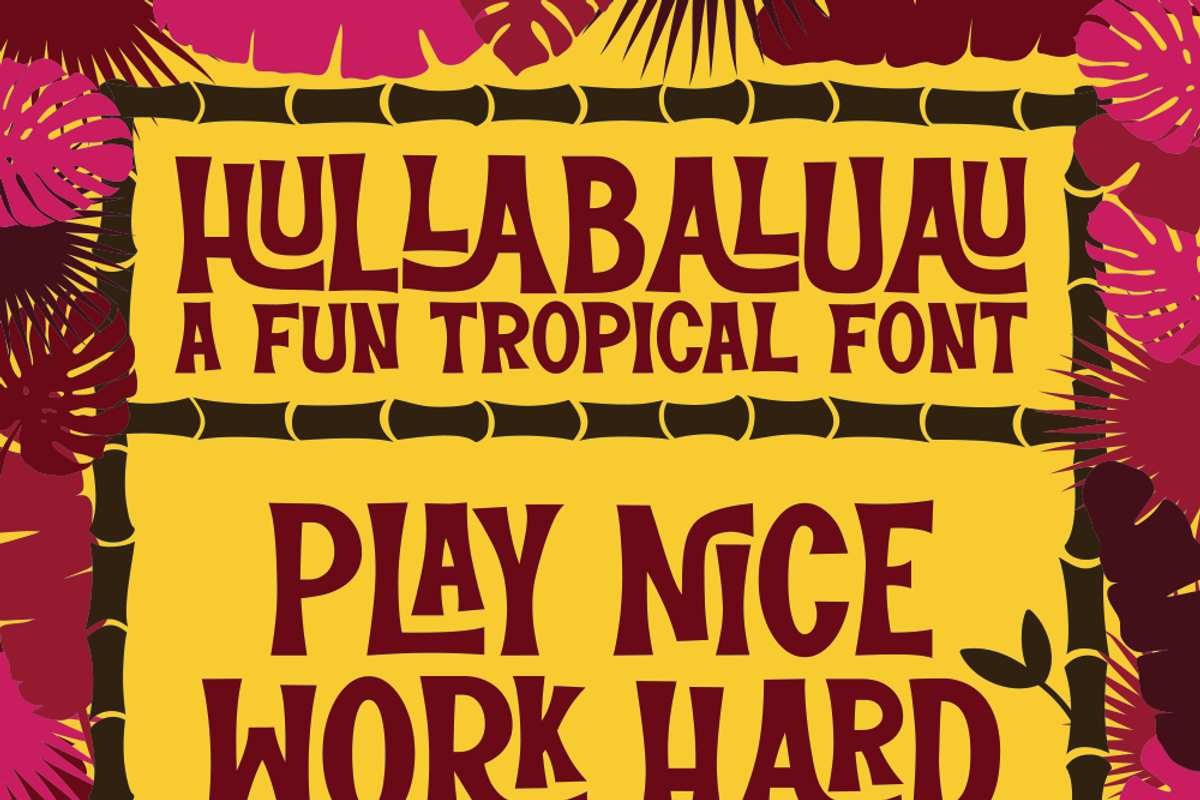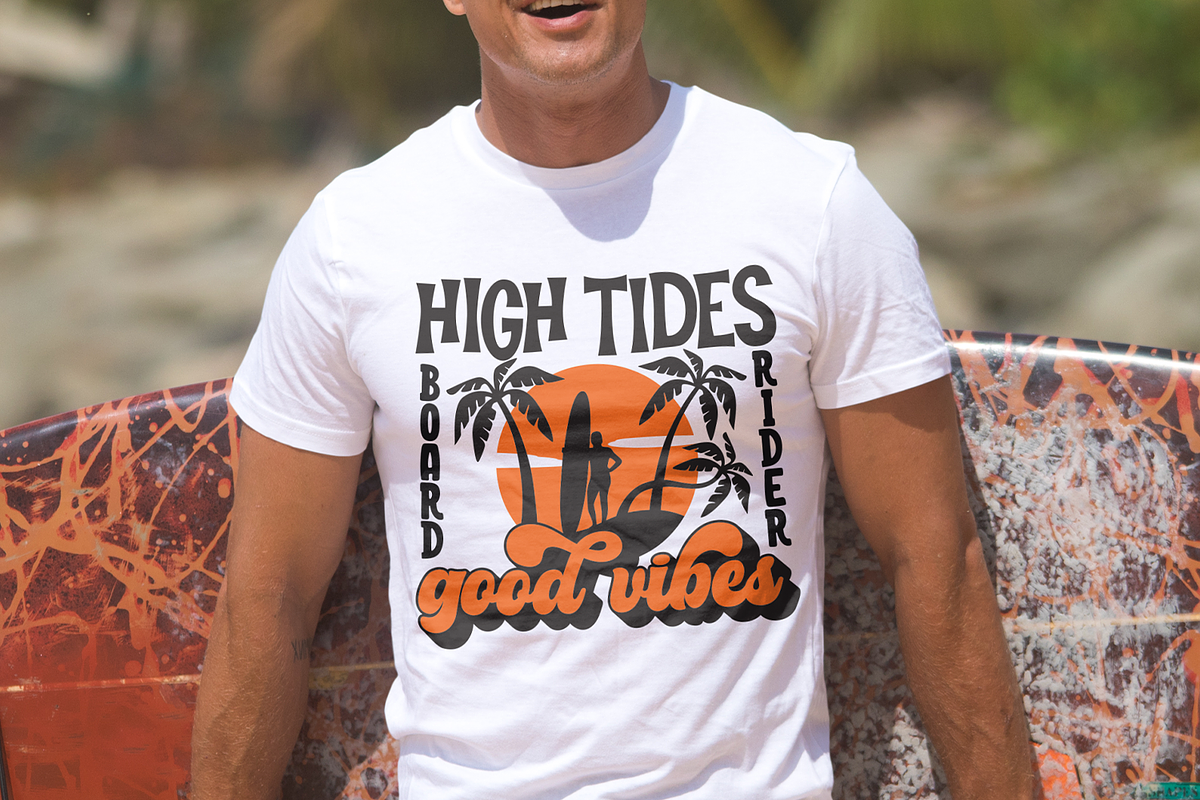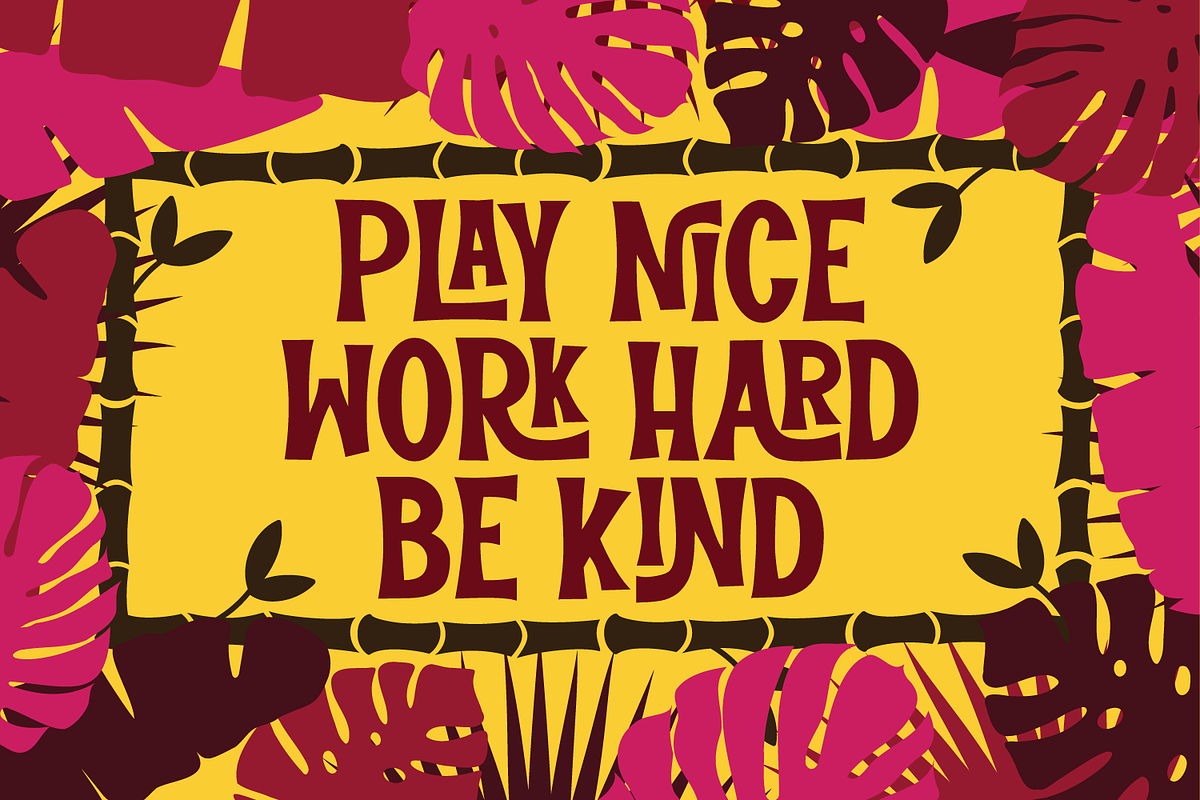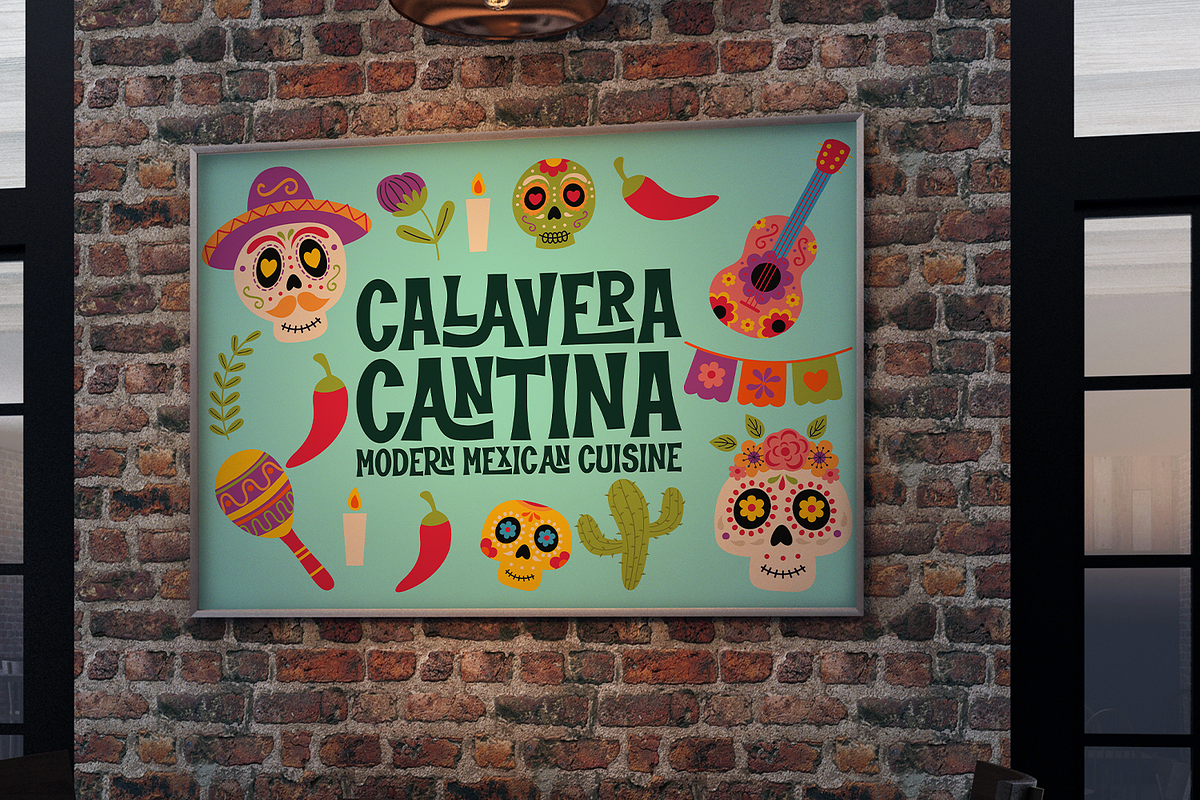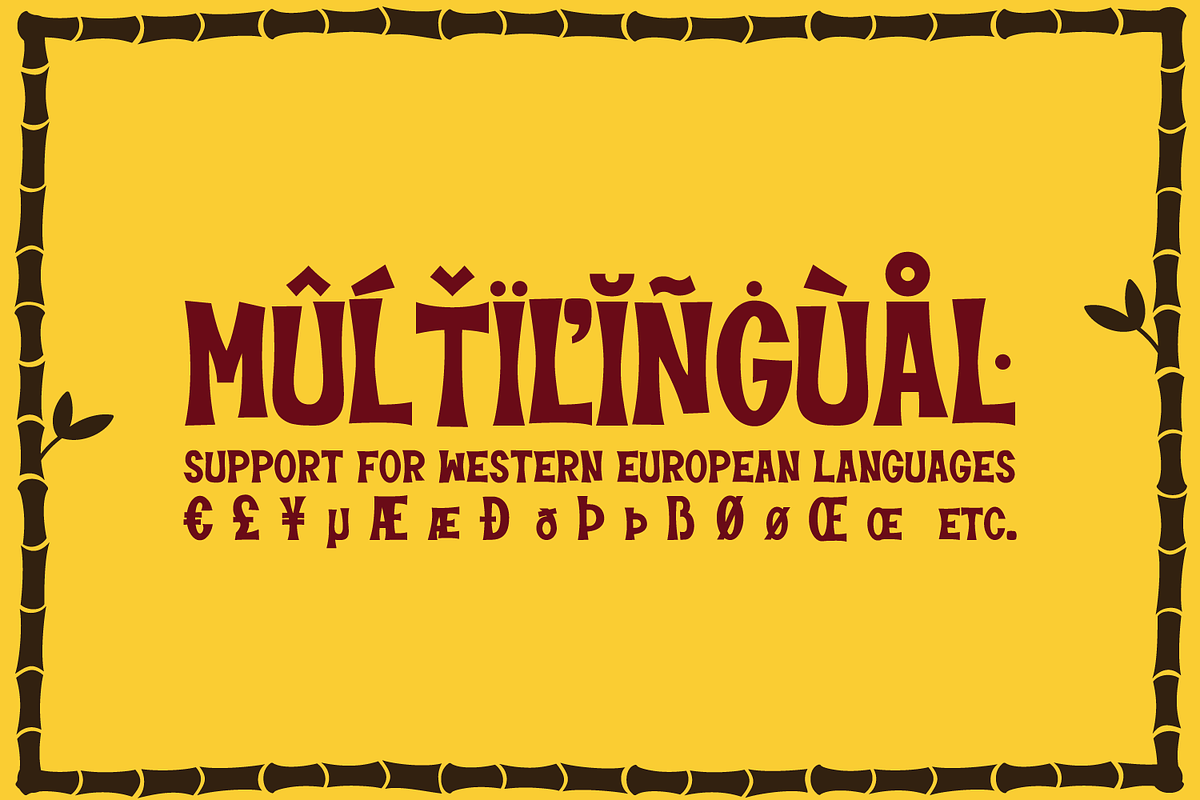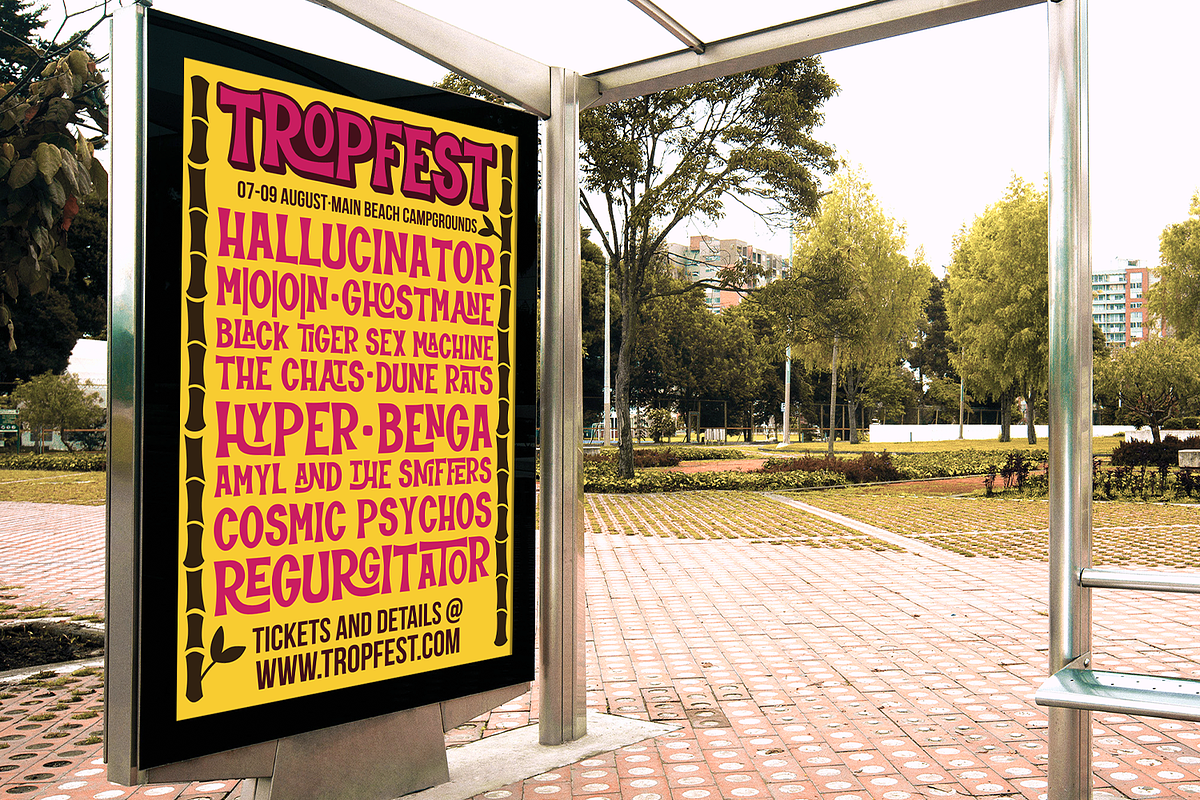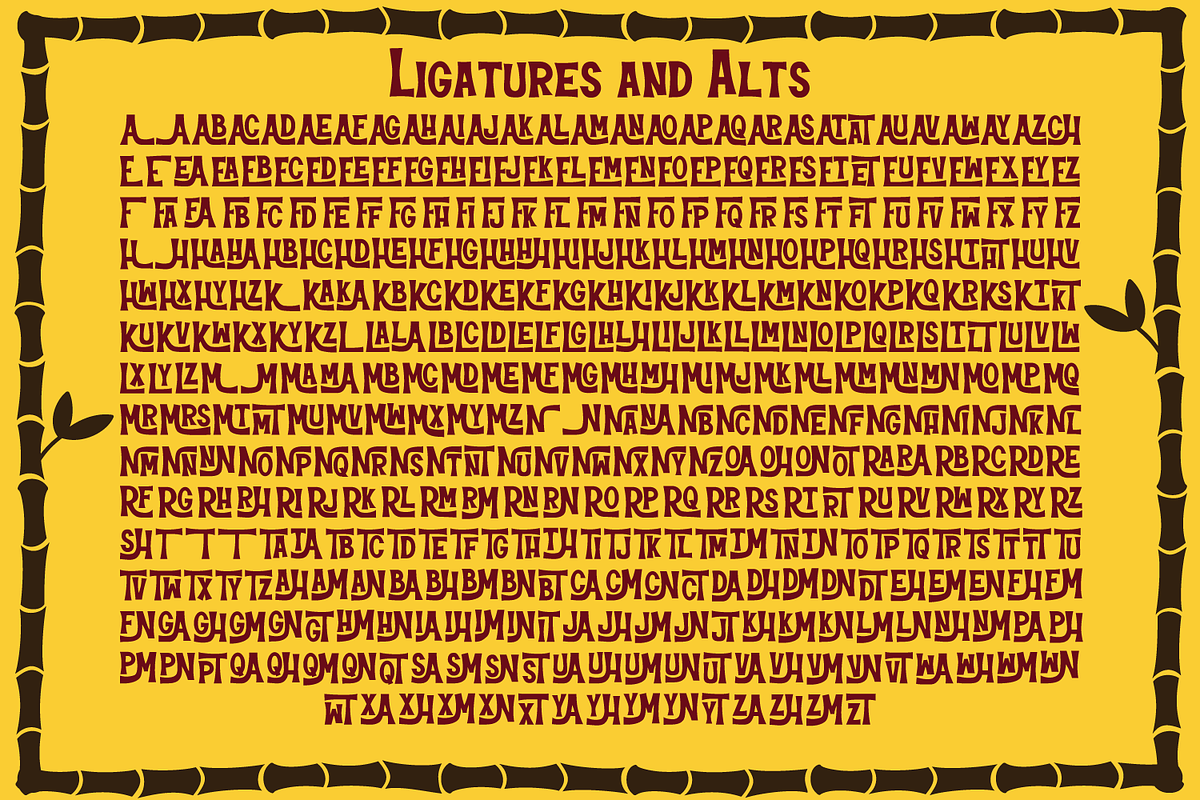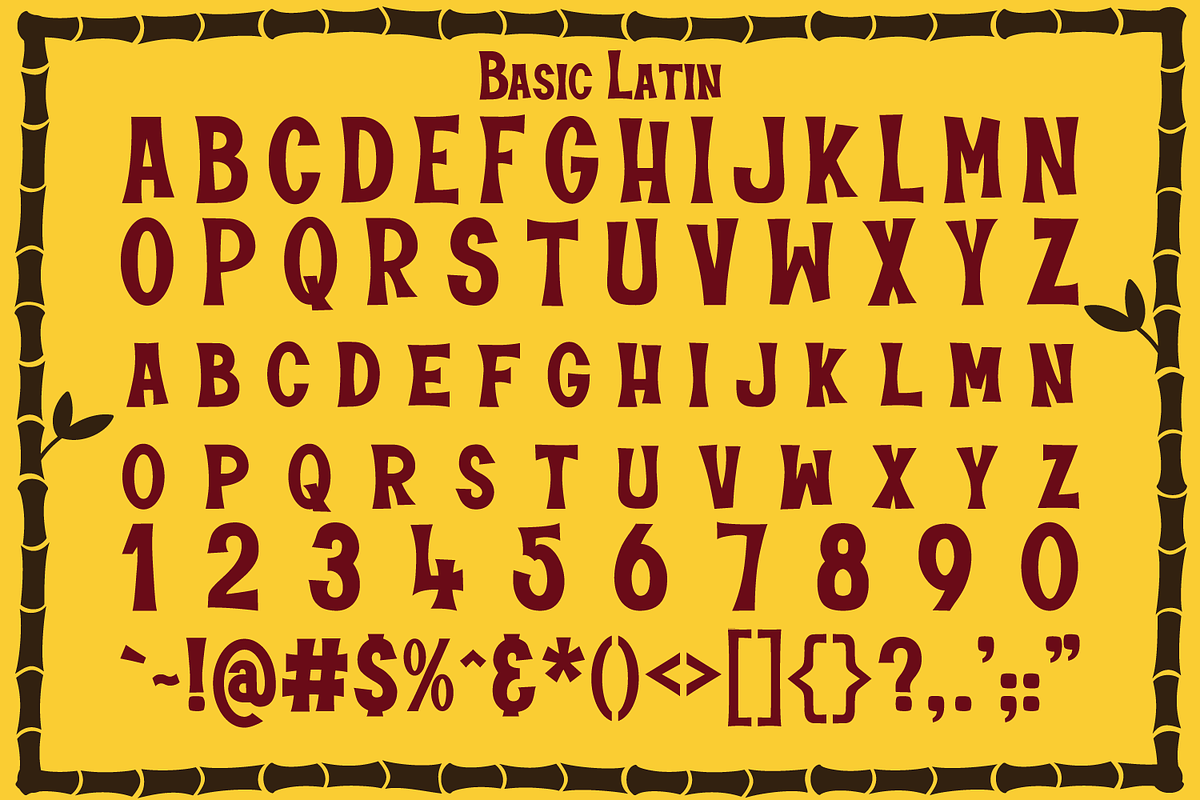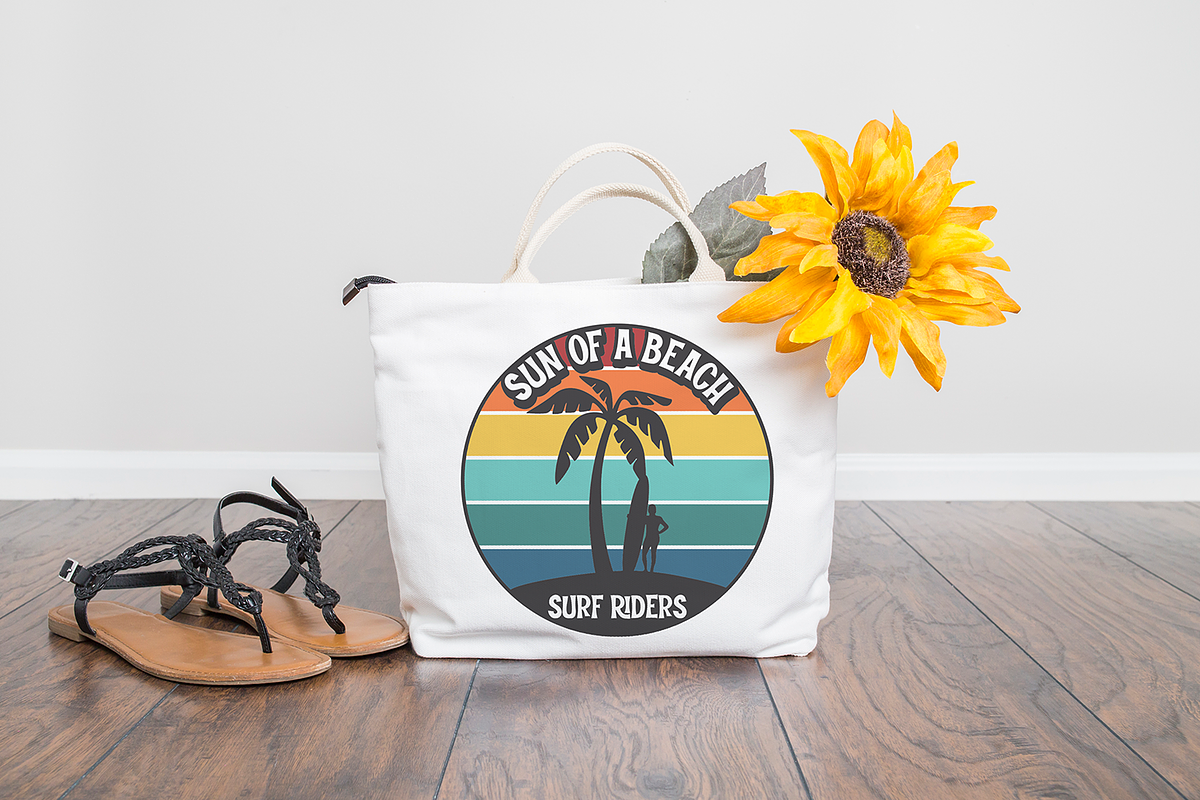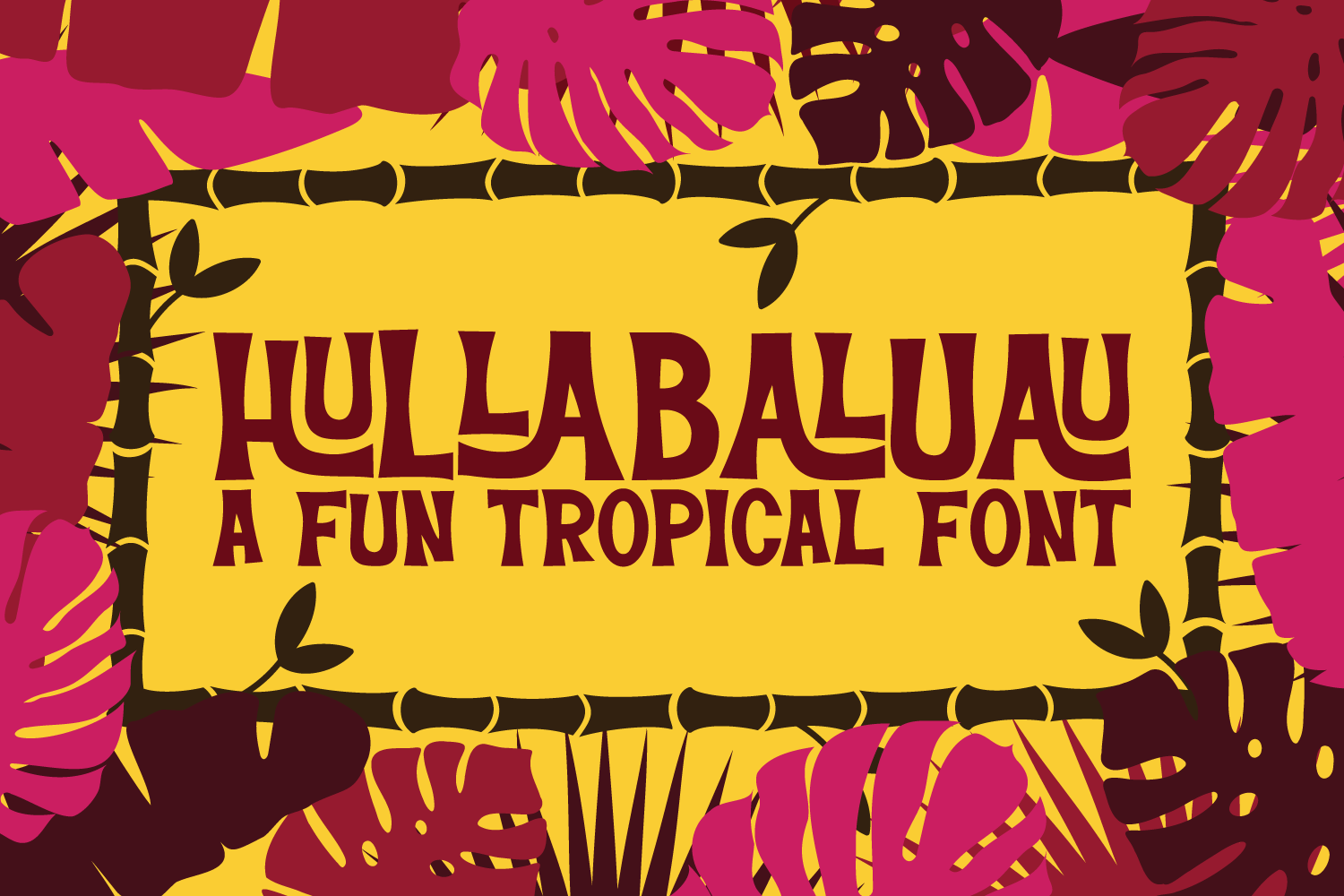
Hullabaluau Font
Meet Hullabaluau, a fun retro tropical font!
Hullabaluau is flared font inspired by tiki culture. With just over 400 ligatures and alts, it is a tantalizing typographic treat!
This font is perfect for branding and t-shirt designs. Try it in a logo or a poster. With a total of 881 glyphs, it's a super fun font that I know you'll have a lot of fun using!
This font includes support for most Western European languages with full Basic Latin (Aa-Zz, numerals, and punctuation,) Latin 1 supplement and Latin extended A sets, as well as partial Latin extended B and combining diacritical marks.
Also included are a set of stylistic alts, and discretionary ligatures. (401 PUA glyphs)